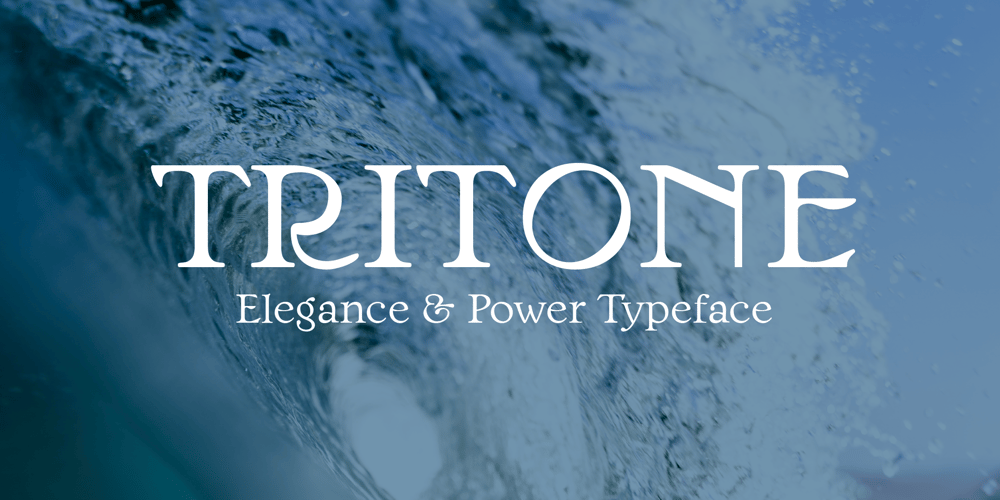
Tritone Font Family was designed by Alessandro Becagli and published by Champagne Design. Tritone contains 2 styles and family package options. Tritone is a serif old style typeface display. The design is inspired by the Art Noveau style, which taken from the facade of a bathing establishment and reinterpreted it. The beauty of the font lies in it is classic and unique shapes and forms that characterise it, and for this comprises only two weights, for the dedication to the forms. The font expresses beauty and tradition, but in a lyrical context it can express the power of opera, because of it is powerful and elegant design.